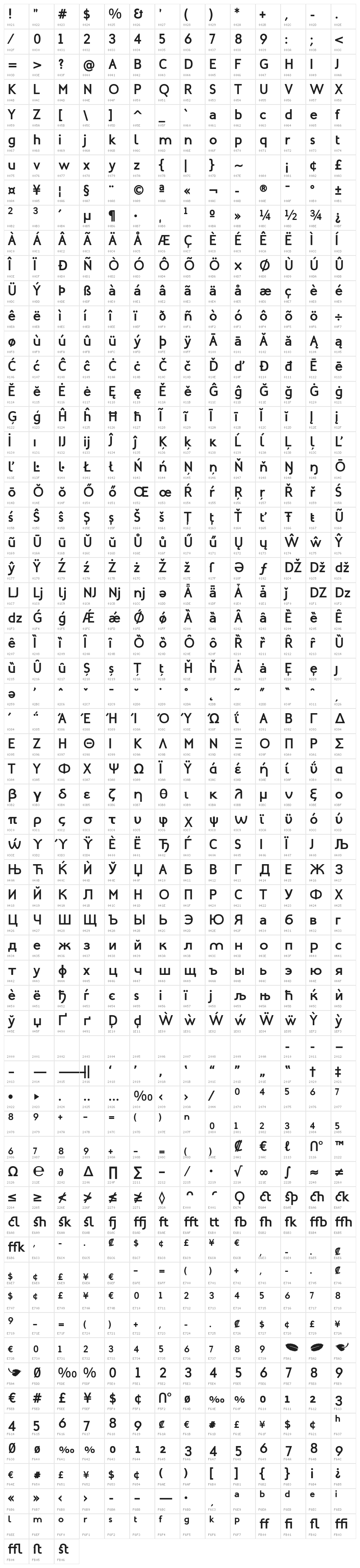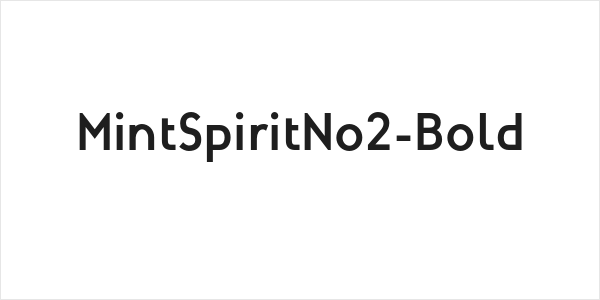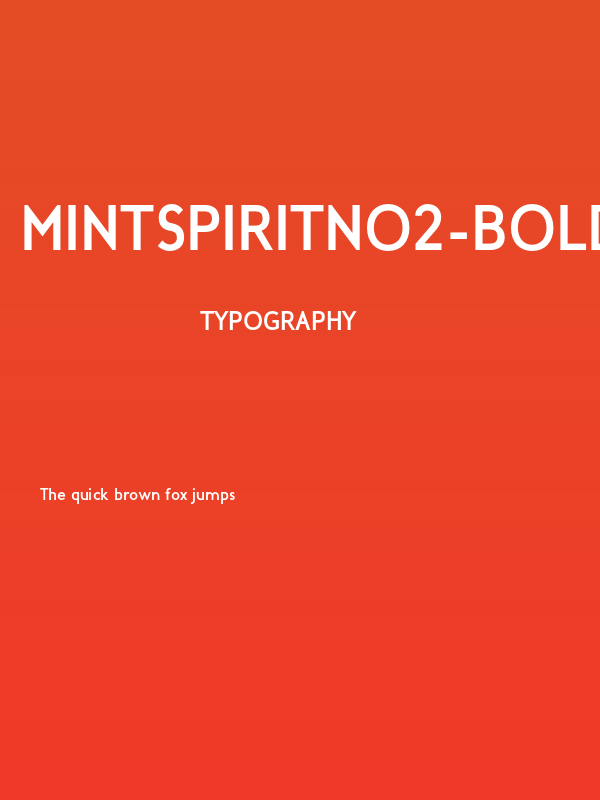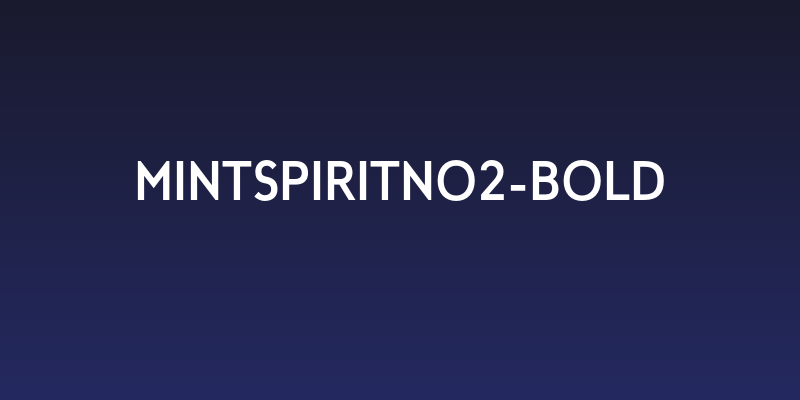
MintSpiritNo2-Bold Font
MintSpiritNo2-Bold Description
This font presents a clean and modern sans-serif style with a bold weight, making it highly legible and impactful. The characters are well-proportioned, featuring a uniform stroke width that contributes to its contemporary appearance. The uppercase letters are strong and assertive, while the lowercase letters maintain a friendly and approachable feel. The numerals are clear and distinct, ensuring readability in various contexts. Special characters are designed with simplicity and clarity, aligning with the overall aesthetic. The font's versatility makes it suitable for a wide range of applications, from digital interfaces to print media.
| Proposed Projects | Ideal for branding, advertising, web design, and editorial layouts. |